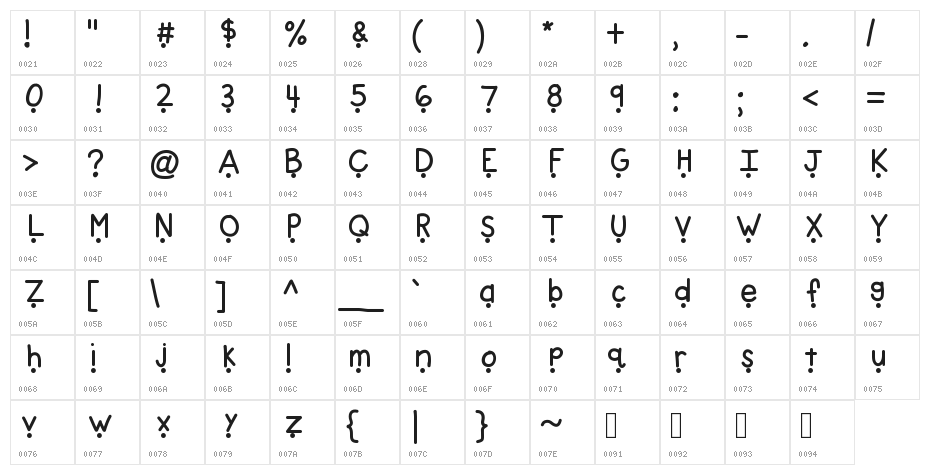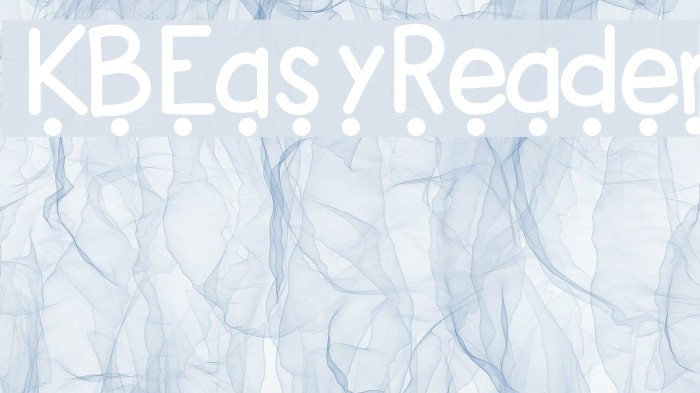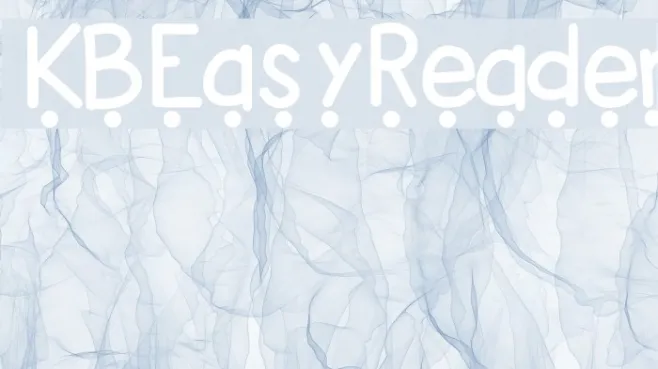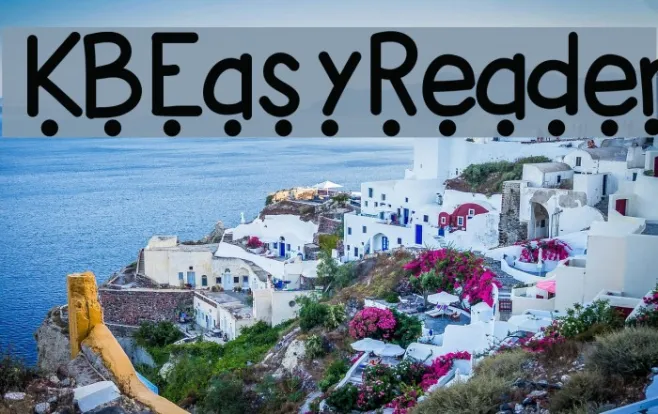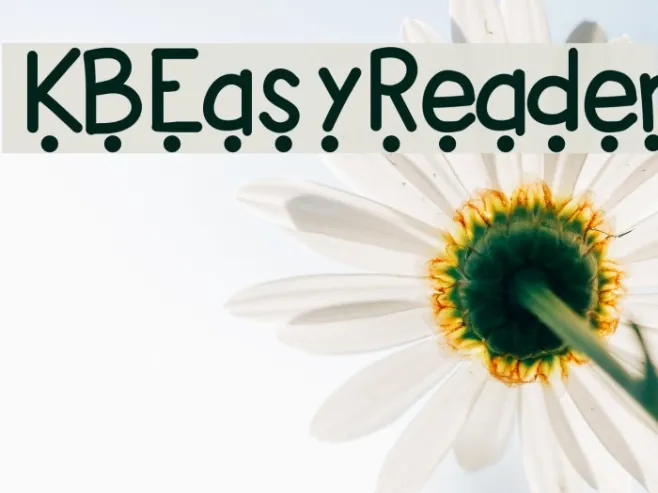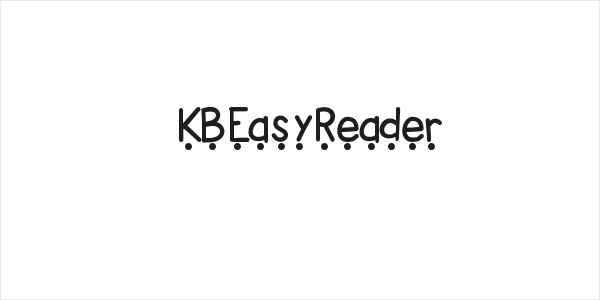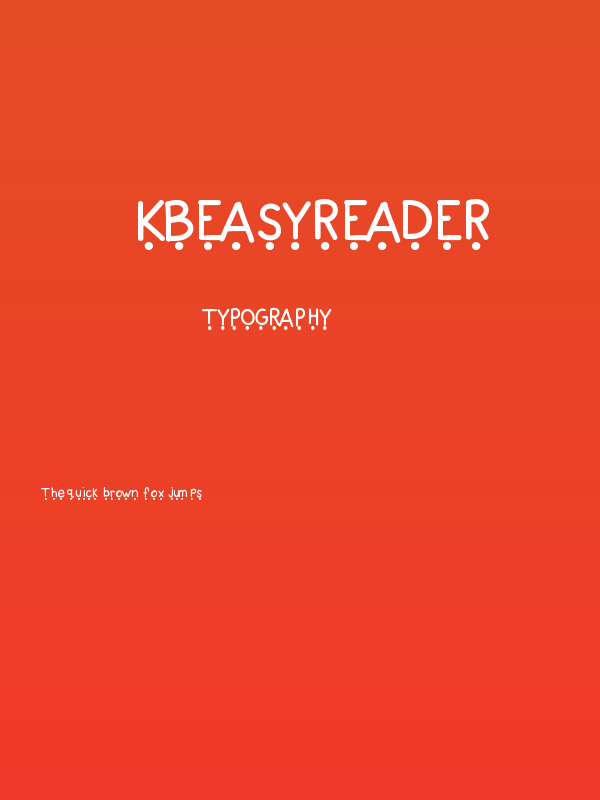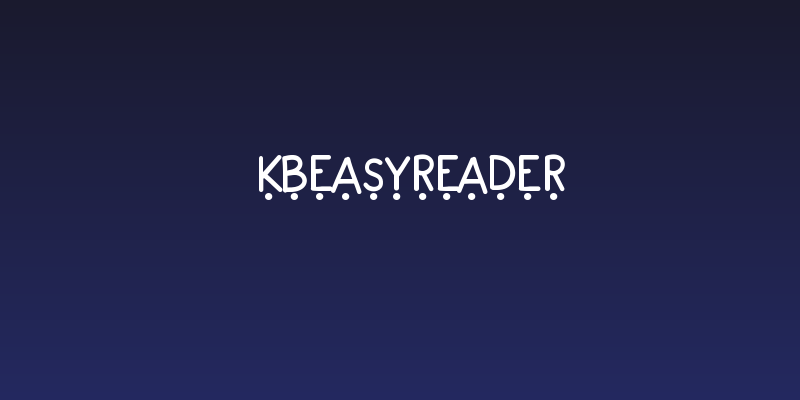
KBEasyReader Font
KBEasyReader Description
This playful and rounded font features a handwritten style with a friendly and approachable appearance. The characters are bold and slightly irregular, giving them a casual and informal feel. The letters are well-spaced, making them easy to read, and the rounded edges add a softness to the overall design. The font includes a full set of uppercase and lowercase letters, numbers, and a variety of special characters, making it versatile for different uses. Its unique style is characterized by a consistent stroke width, which contributes to its legibility and charm.
| Proposed Projects | Ideal for children's books, educational materials, playful branding, and casual invitations. |